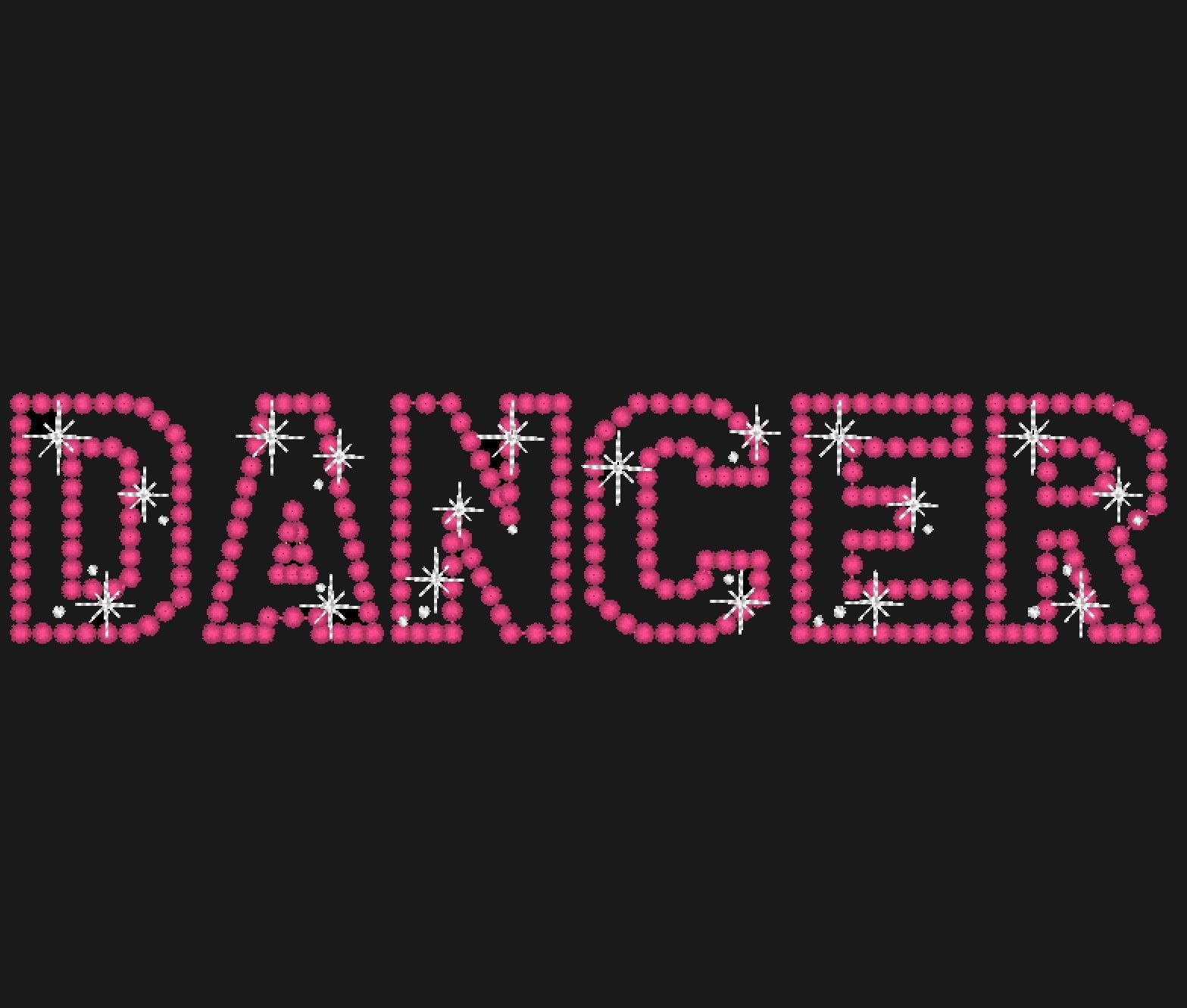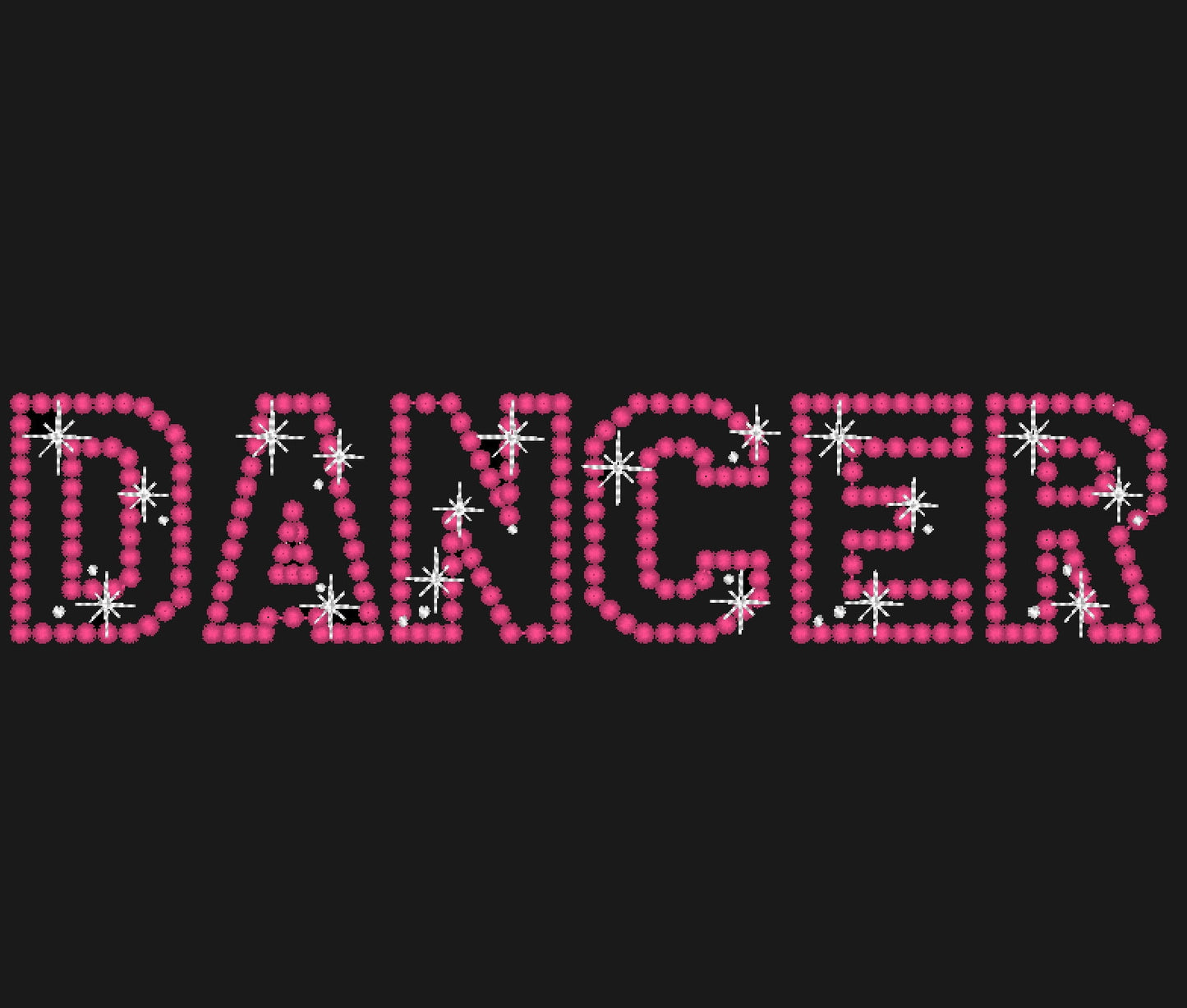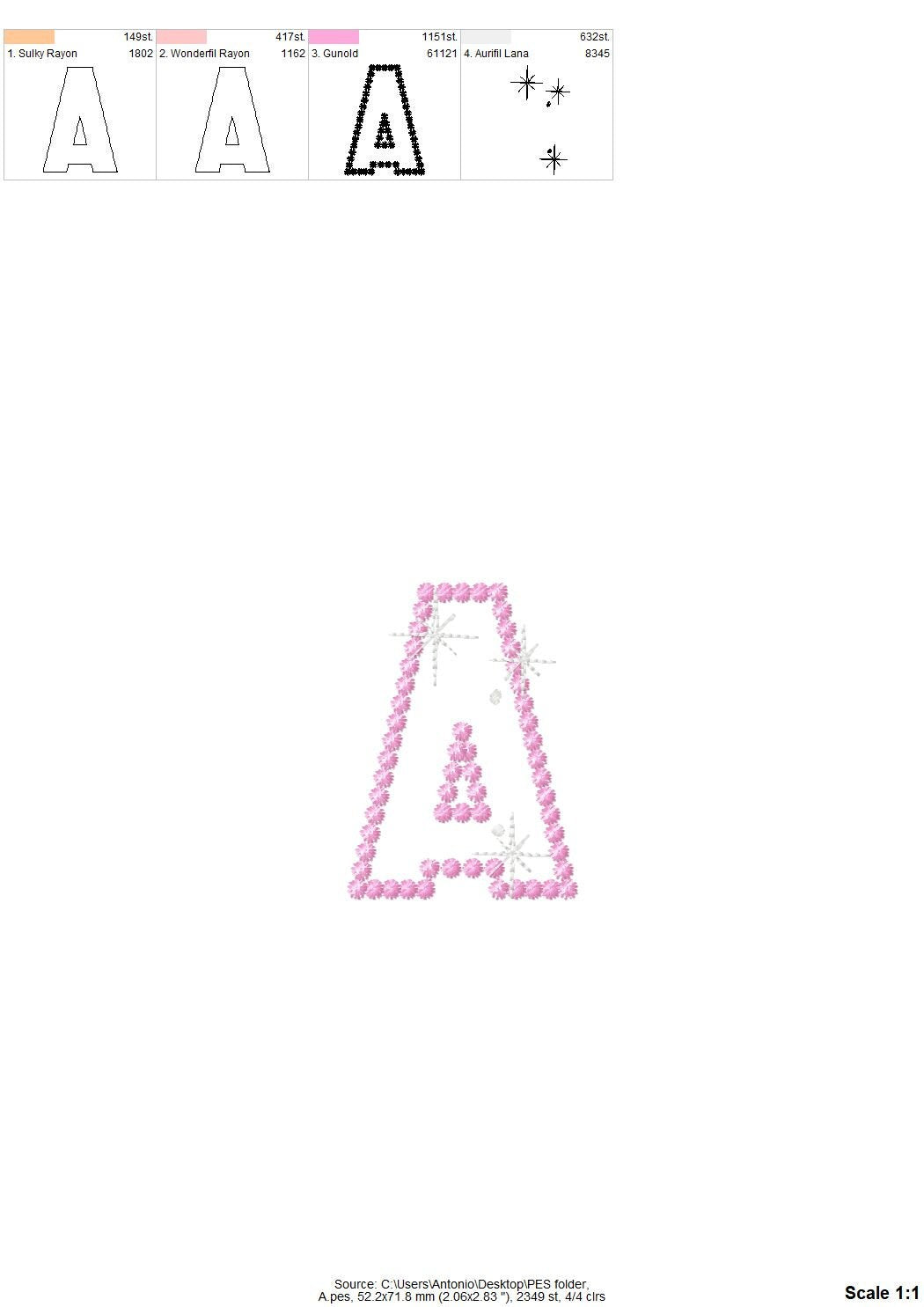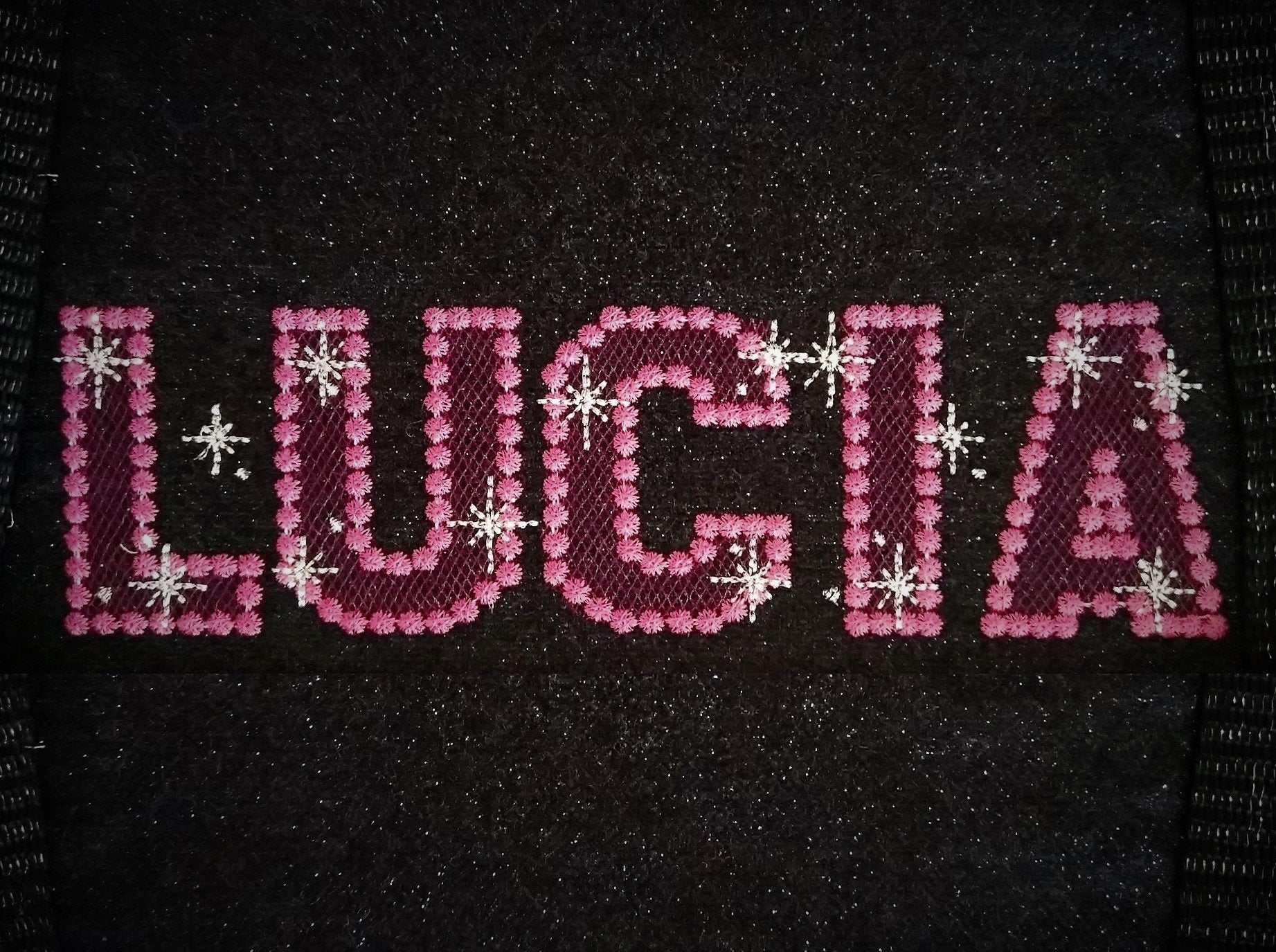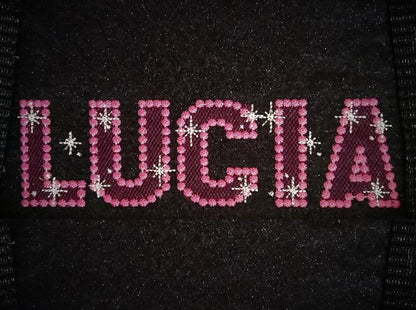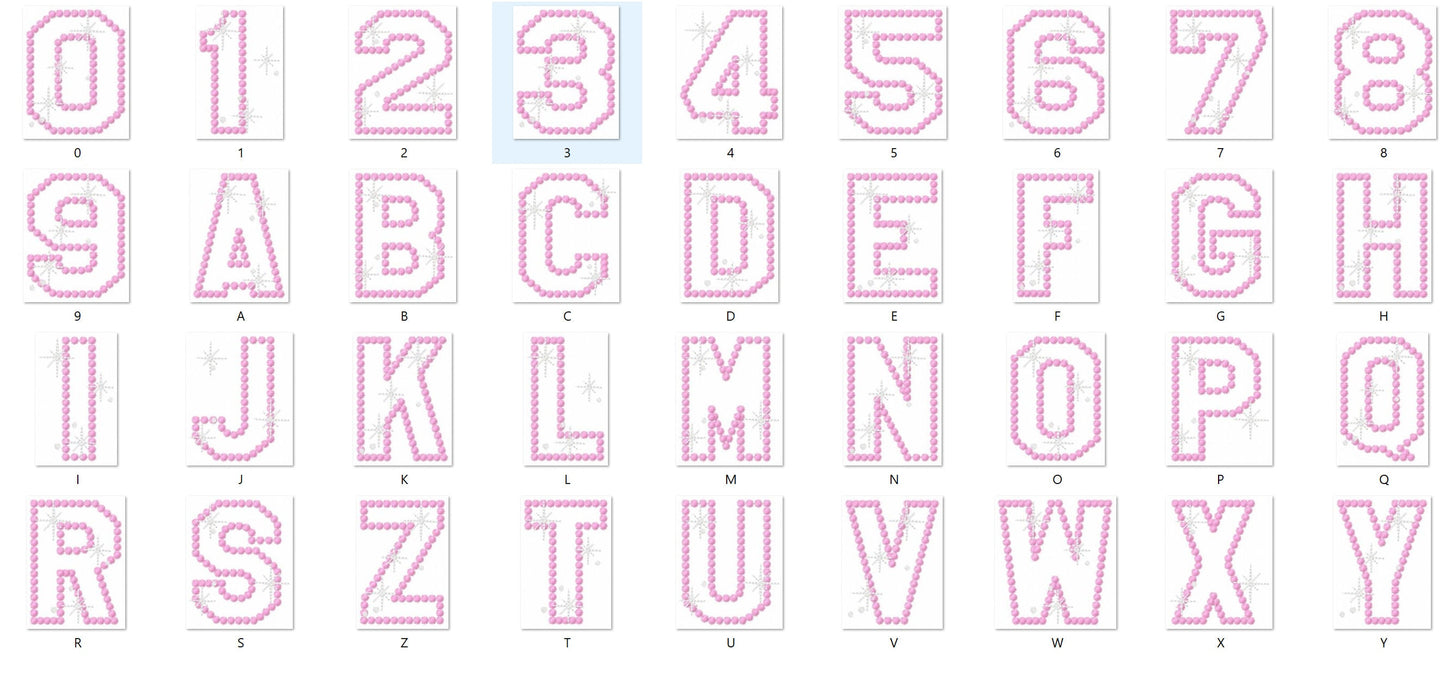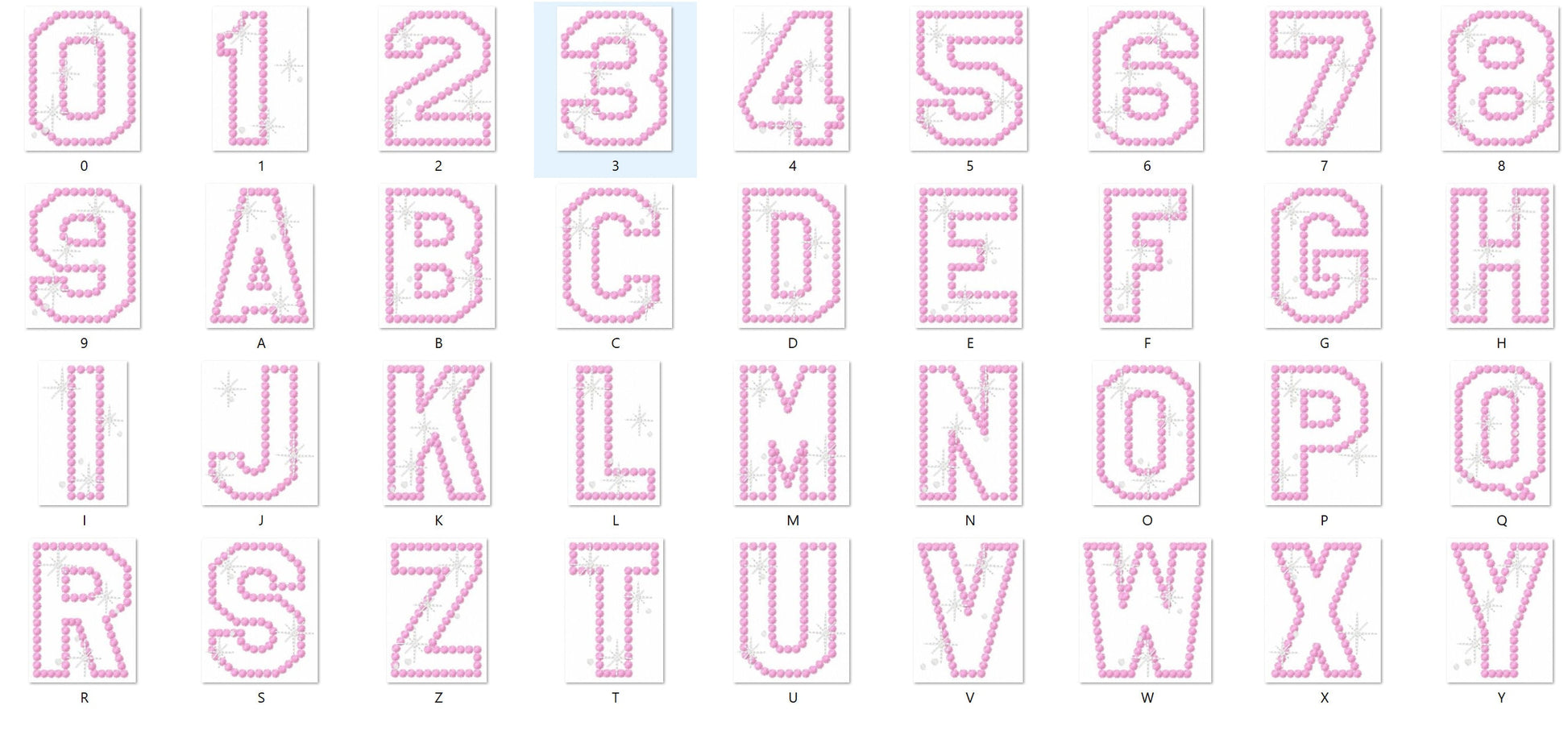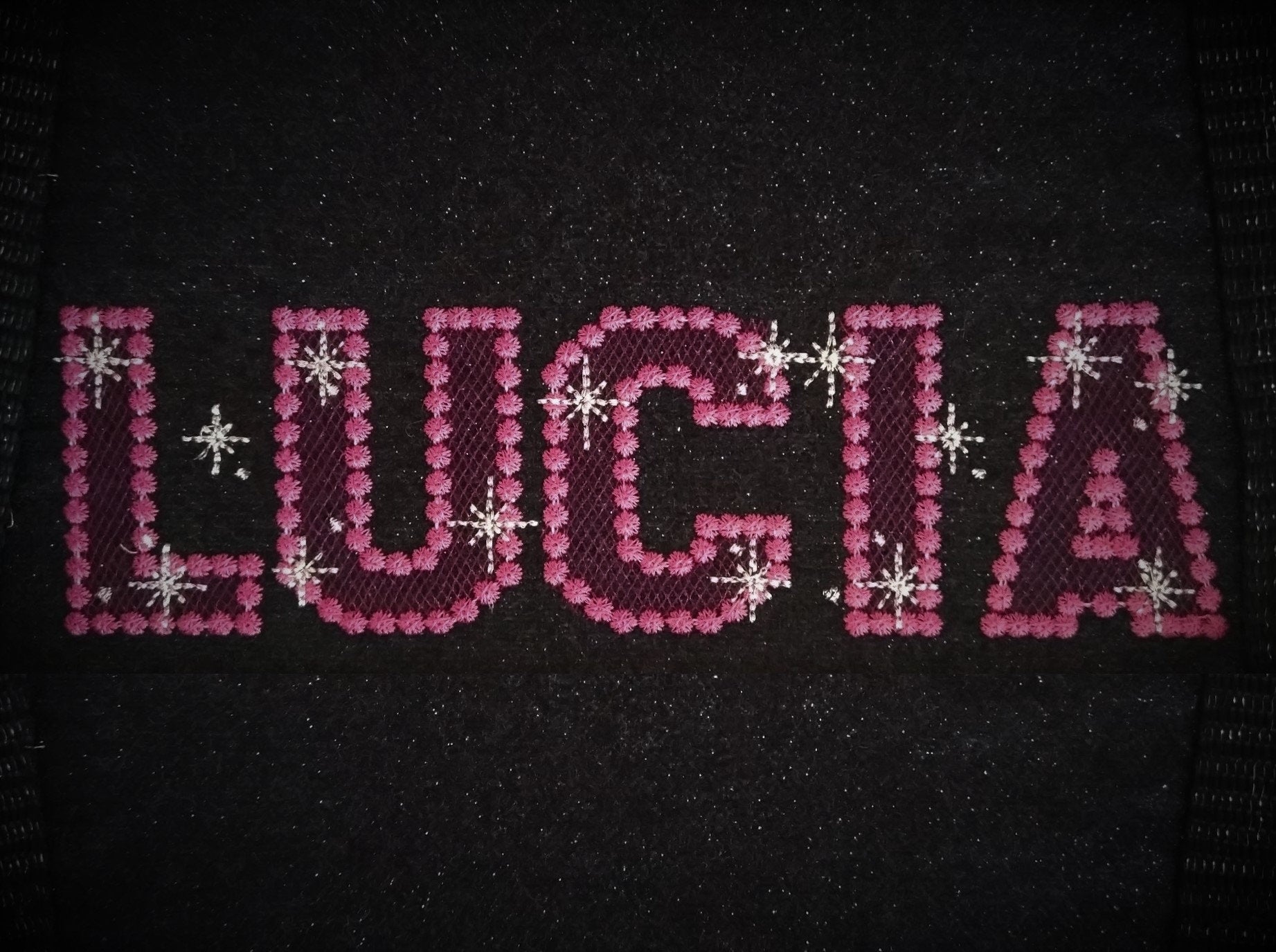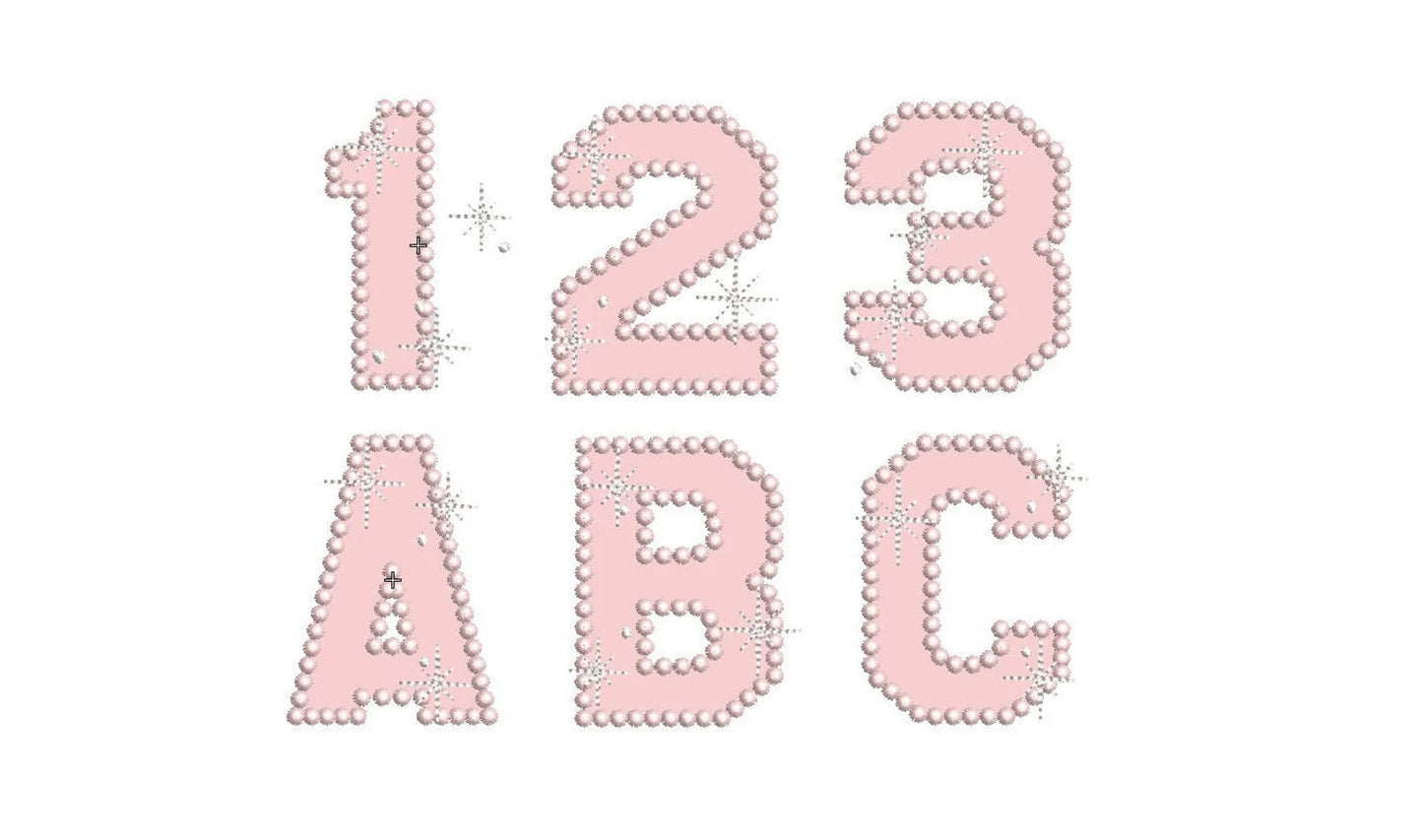
Or click to open the linkA sparkling sporty applique font for dance, cheer and team names and numbers on shirts, bags and costumes.
Applique letters, uppercase A to Z and numbers 0 to 9, in five sizes: 2, 2.5, 3, 3.5 and 4 inches.